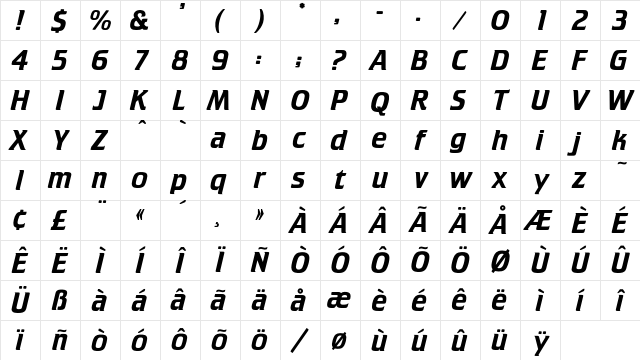
OPTICristeta-Italic Italic Free Font
OPTICristeta-Italic Italic
Foundry: Copr. Castcraft Software, Inc
Design Context for OPTICristeta-Italic
OPTICristeta-Italic is a composed and adaptable typeface that performs quietly and consistently across a wide range of design contexts. The slanted form adds forward momentum and visual energy.
Pro Tip: Use OPTICristeta-Italic for emphasis, pull quotes, and subheadings where its slanted energy can add rhythm to the layout.
Who designed the OPTICristeta-Italic Italic font?